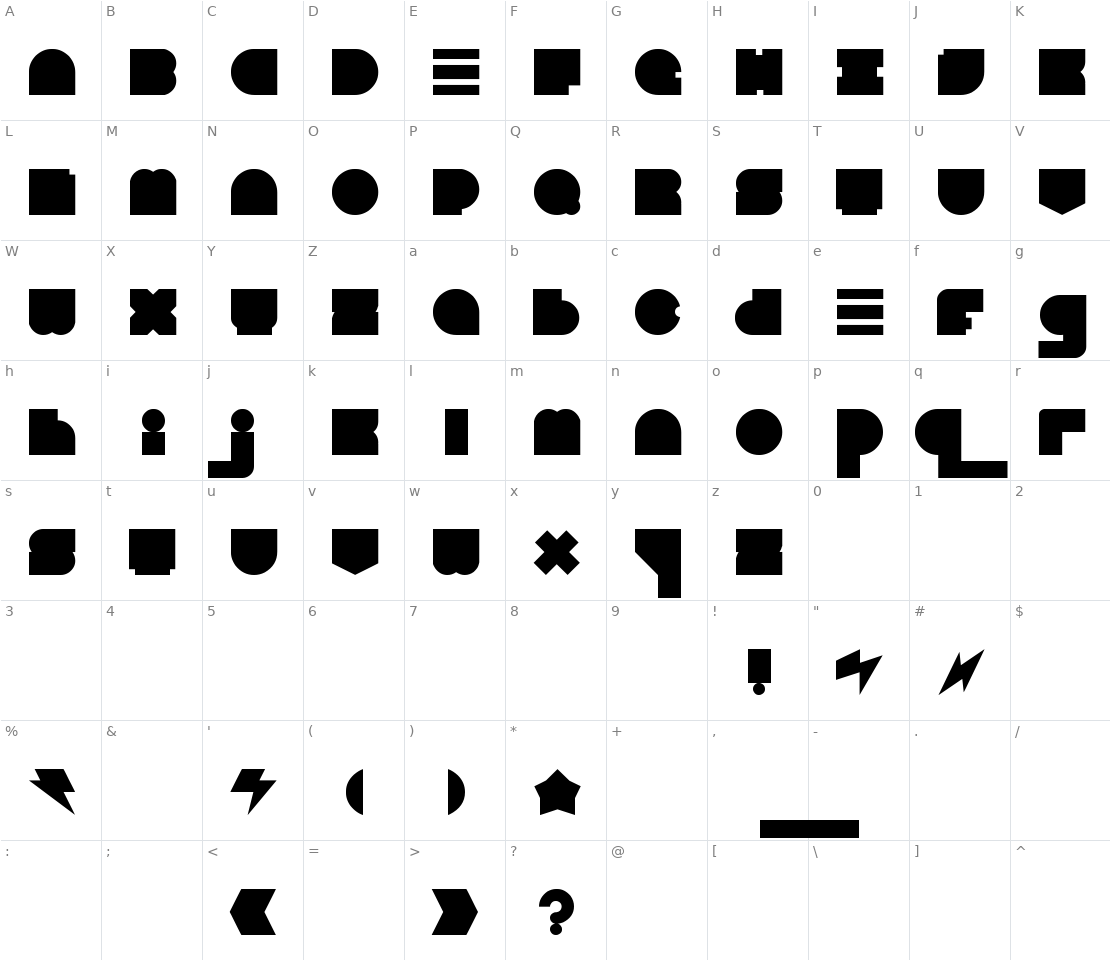
Blast Beat
Blast Beat is a massive, ultra-bold display face from Dirt2.com / SickCapital where every letter feels like it's taking up as much space as physically possible. The letterforms are blocky and geometric, with minimal negative space and a raw, confrontational weight that hits like its namesake. Built for posters, headlines, and short bursts of text where sheer mass is the message.